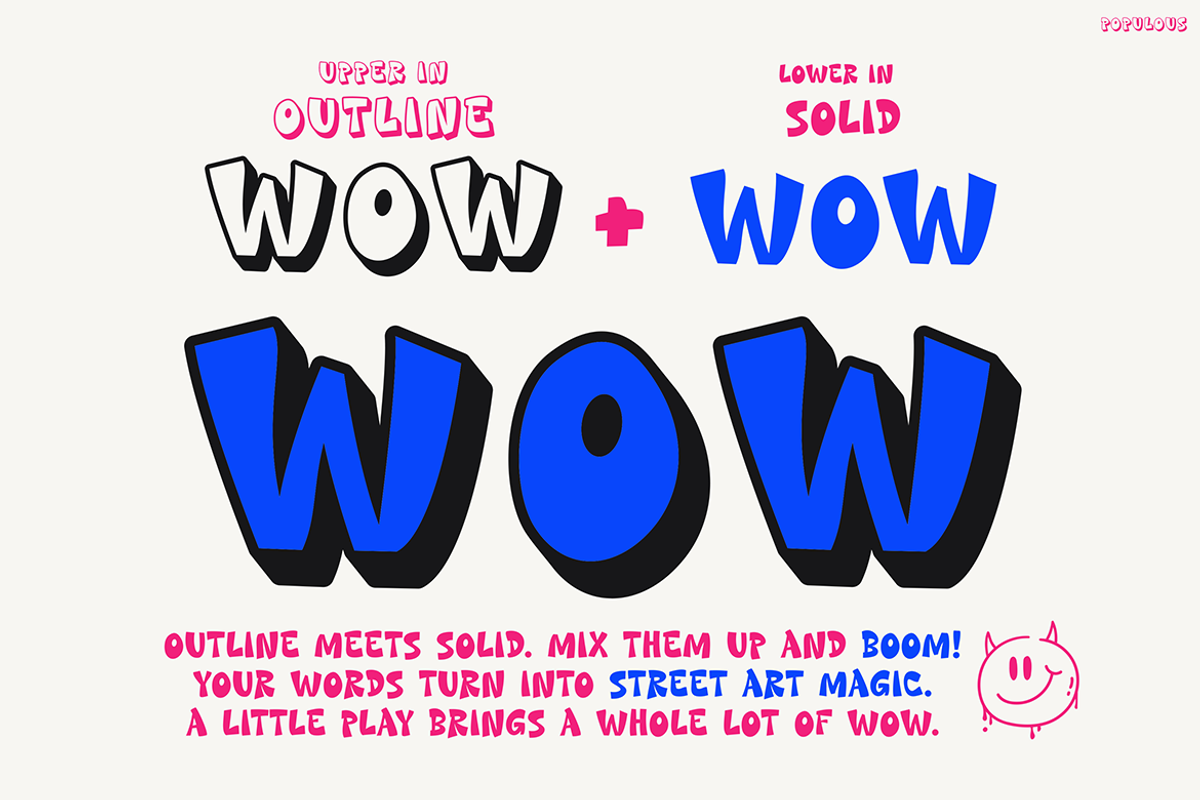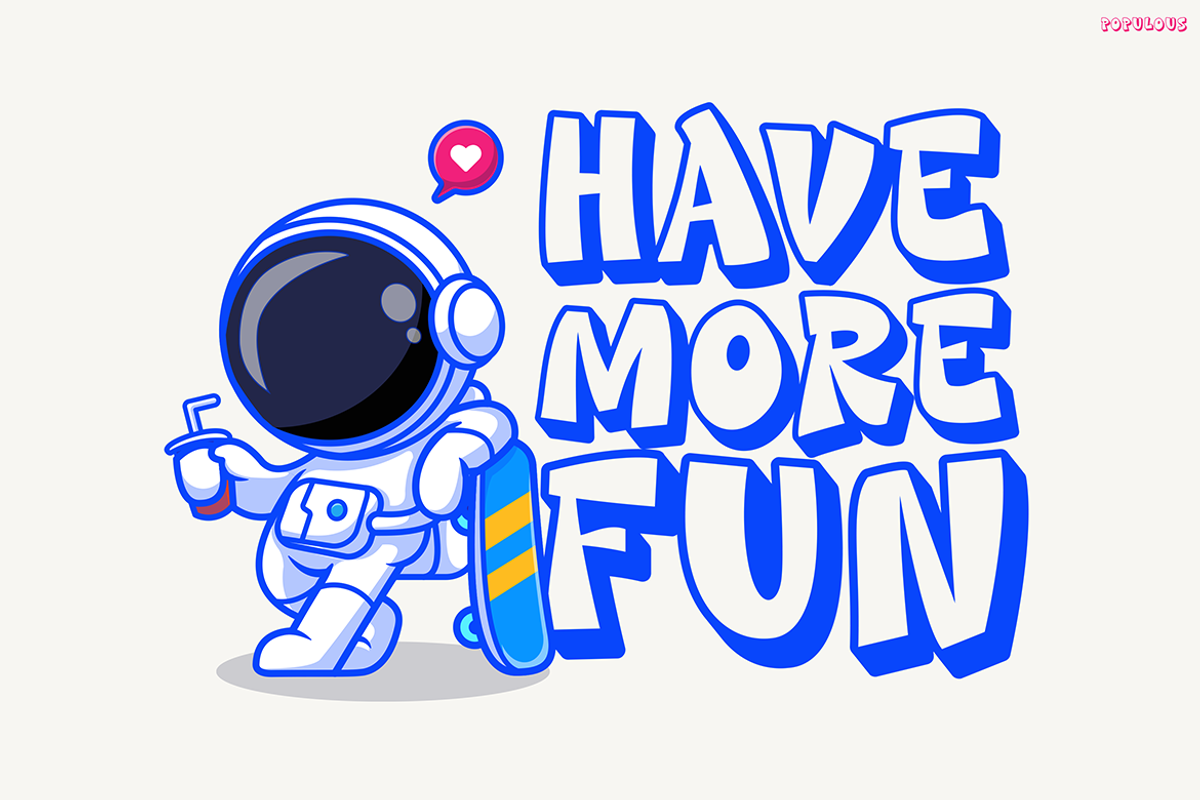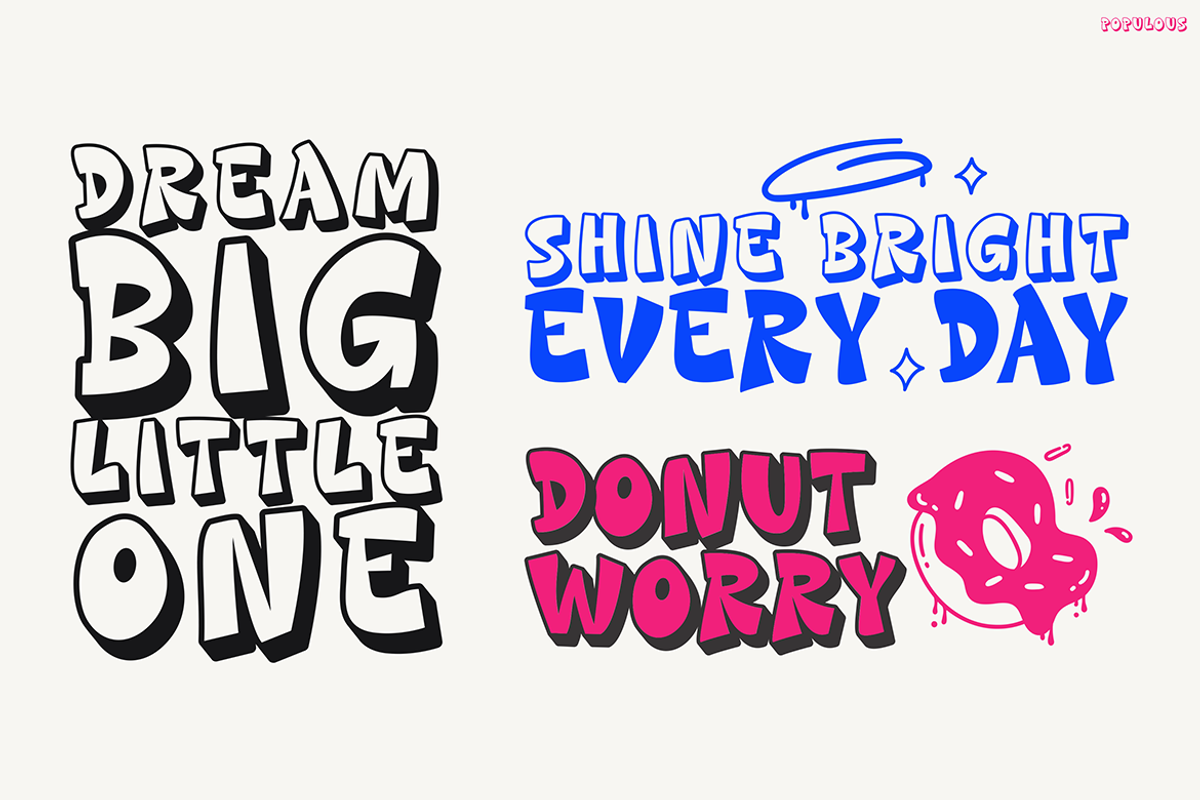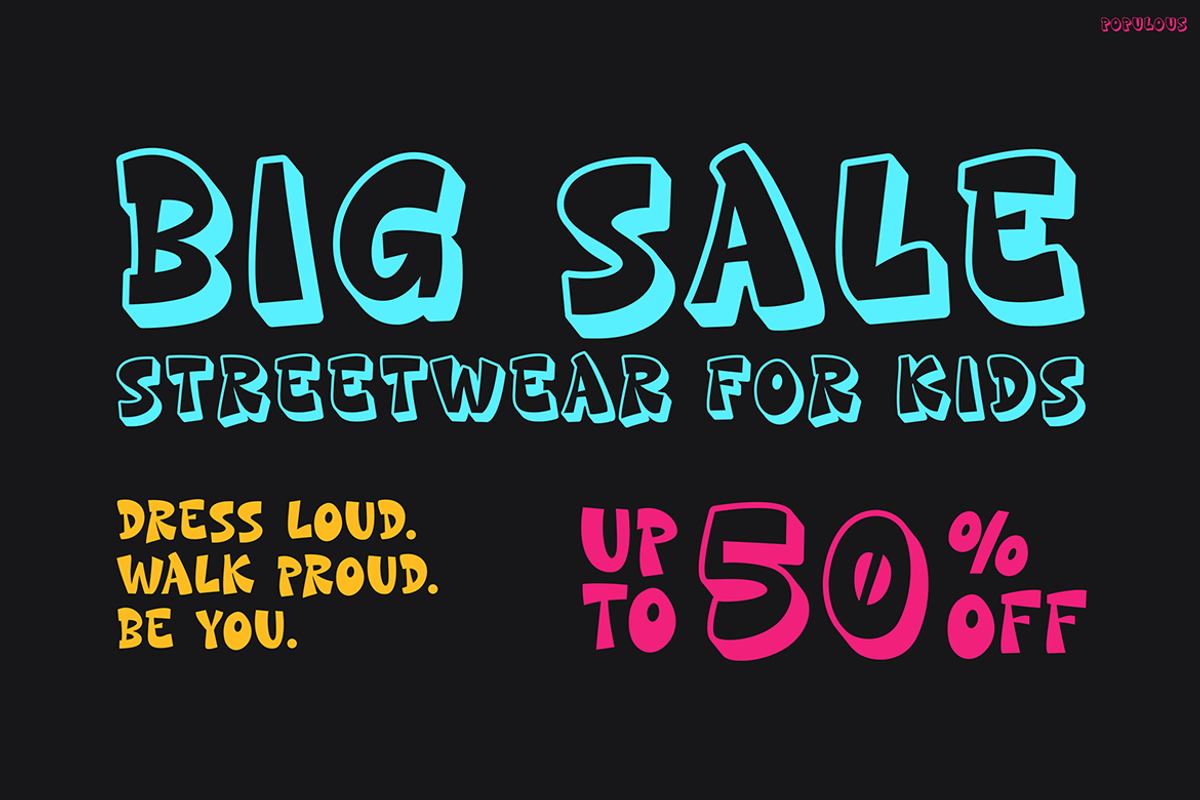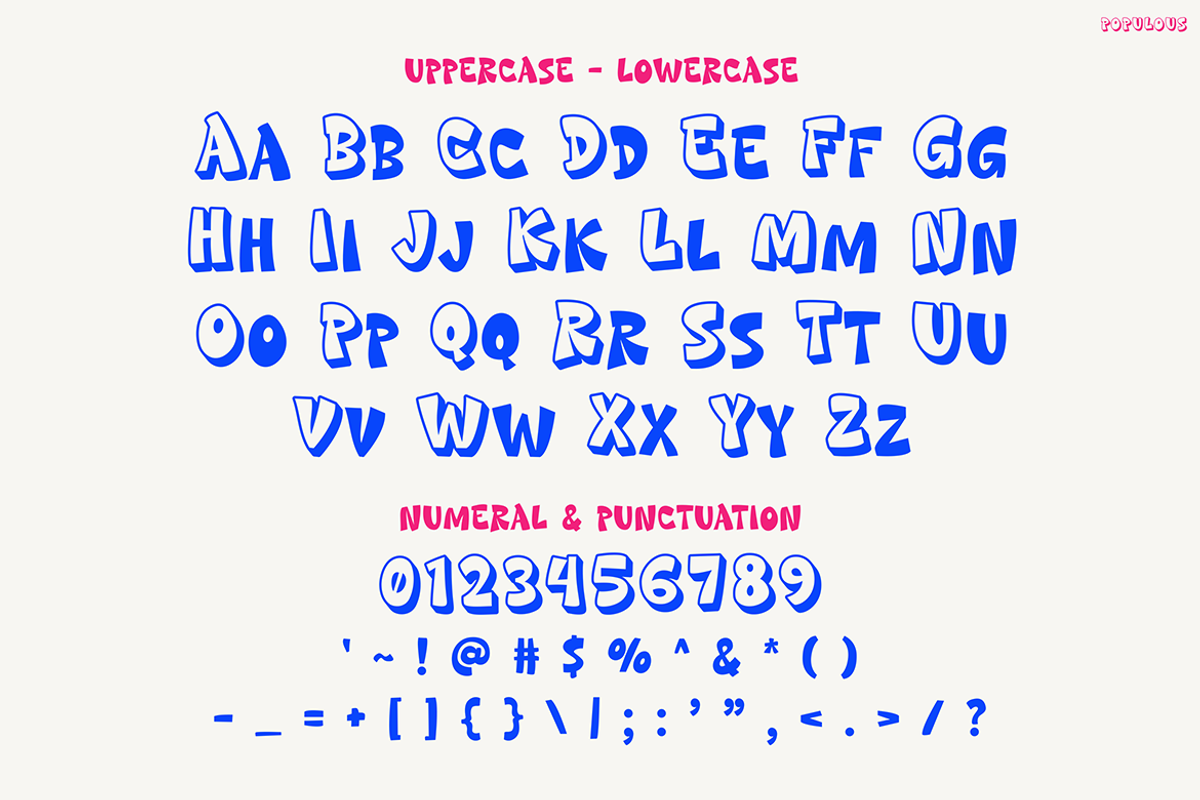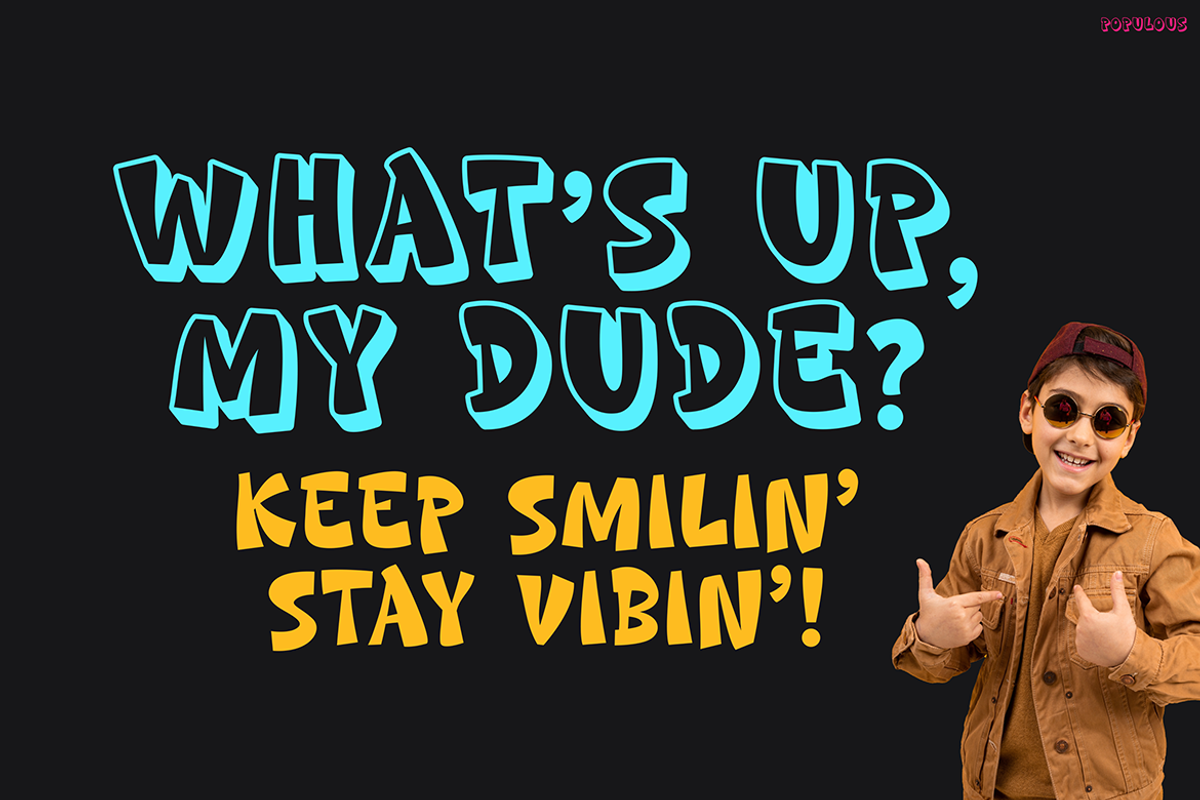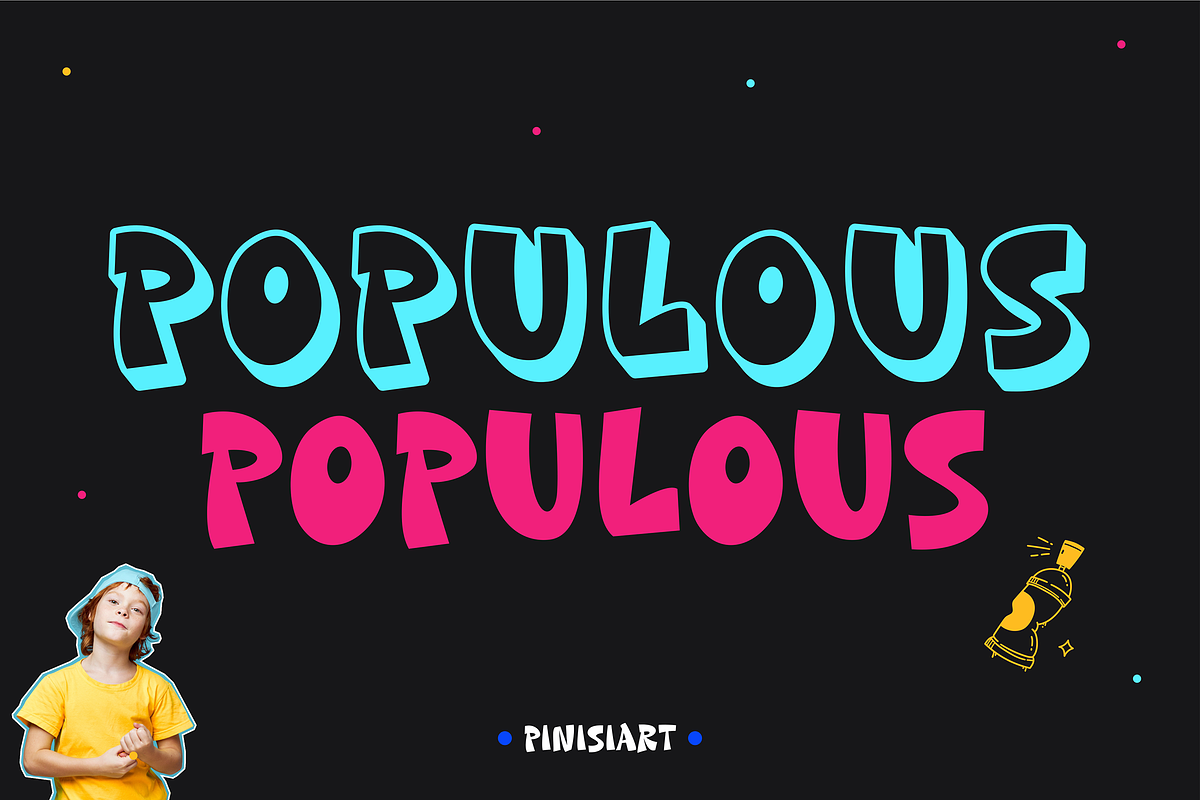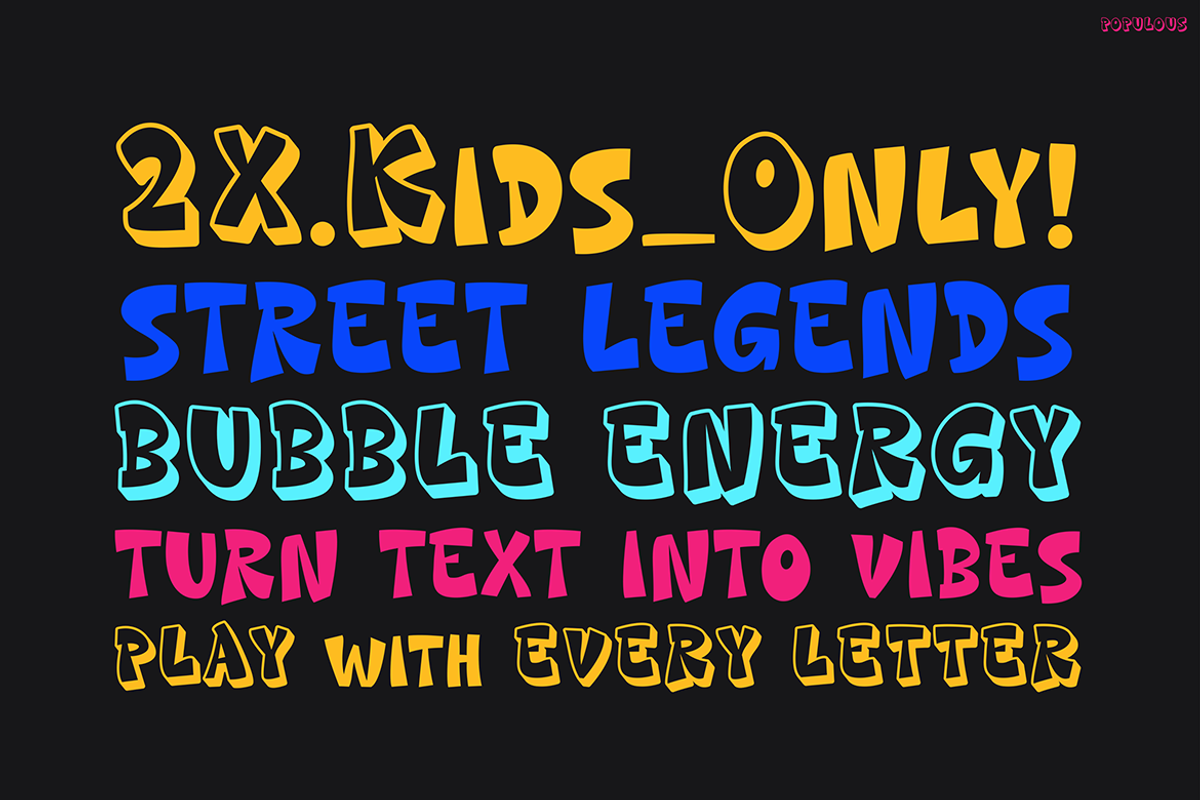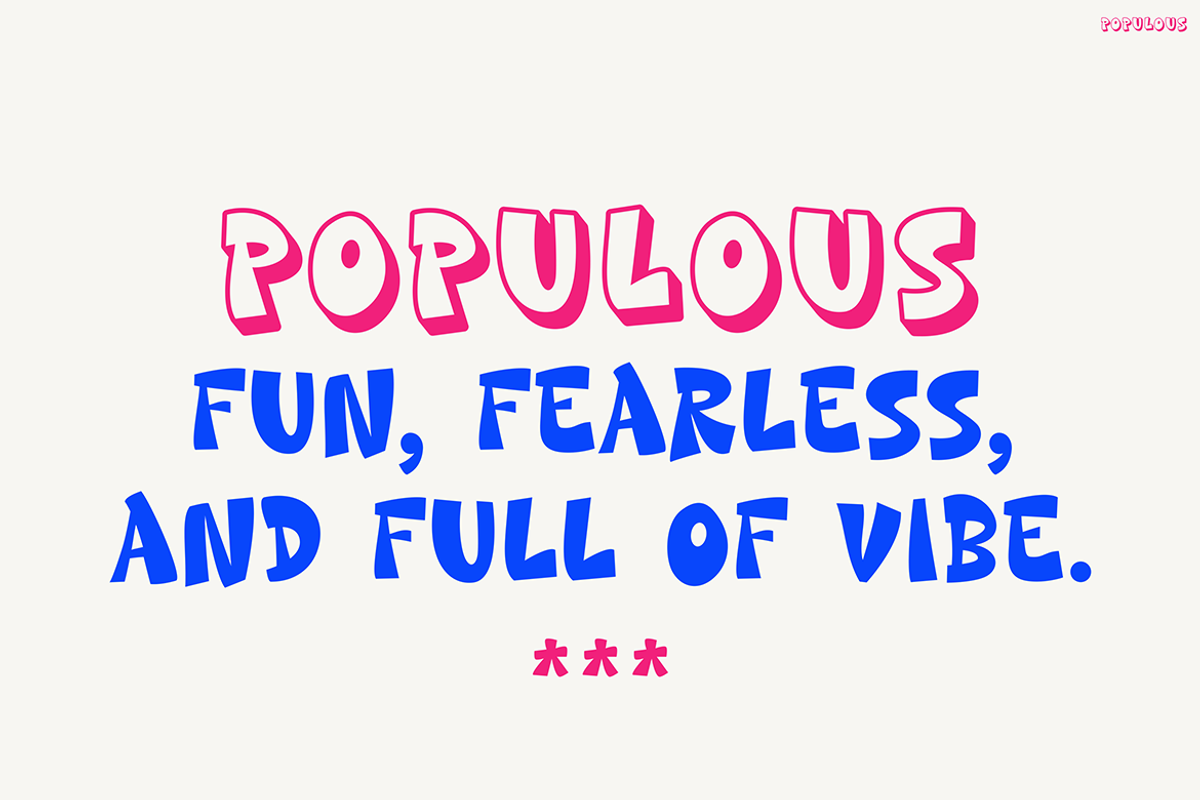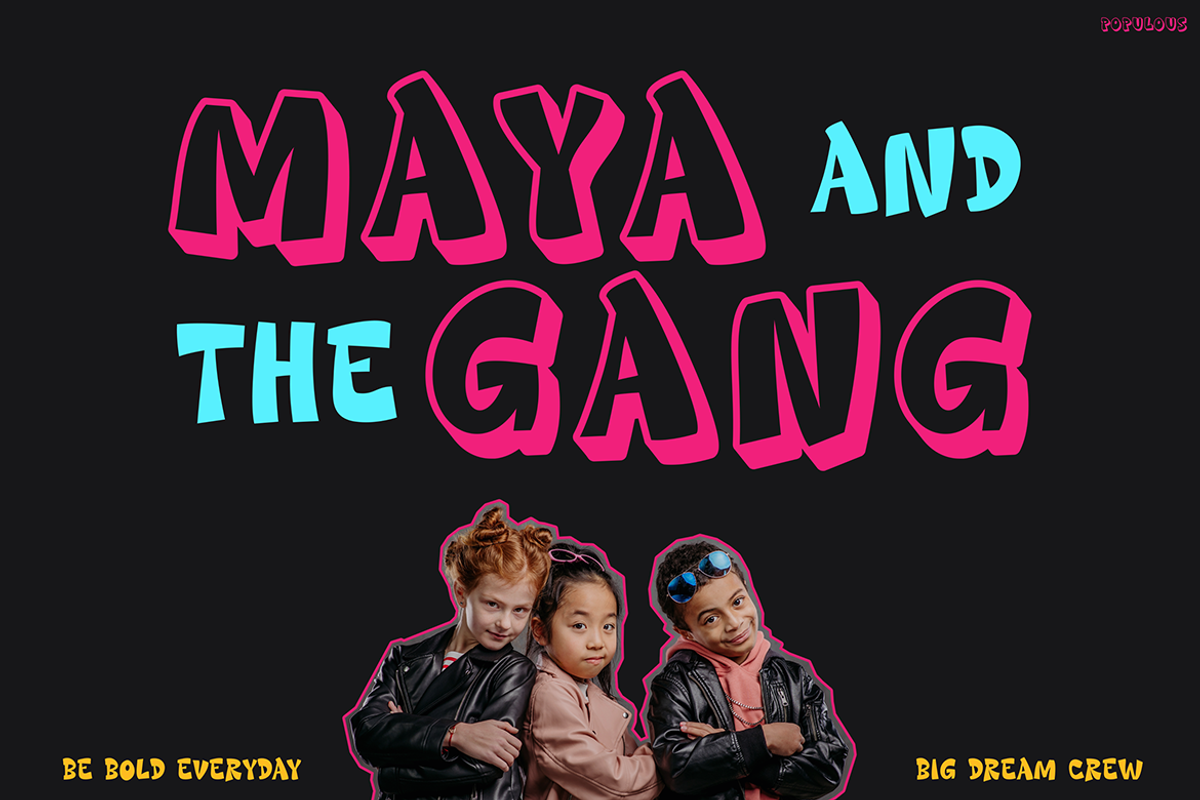
Populous
Kids Font Populous – The Cool & Chunky Font That Screams Personality!
Kids Font Populous is a bold, punchy display font with attitude and playfulness packed into every letterform. With a blend of solid fills and outlined styles, this typeface delivers urban vibes and comic energy, making your text look alive, loud, and totally unforgettable. Designed with thick strokes, quirky curves, and bubbly balance, it offers a strong presence while staying fun and readable.
Whether you choose the filled or outline version—or combine both—Populous adds dimension and visual contrast that pops off the page. The font oozes character and style, as seen in the previews showcasing everything from kid streetwear ads and quotes to posters, sci-fi adventures, and dreamlike affirmations. The letterforms have a slight bounce, keeping layouts dynamic and exciting while maintaining legibility at different sizes.
Each image shows how Populous thrives in loud, energetic themes. It can be playful like bubblegum or bold like graffiti, depending on how you use it. Because of its thick structure and attention-grabbing form, it’s perfect for big headlines, expressive logos, or social media visuals that need to stand out.